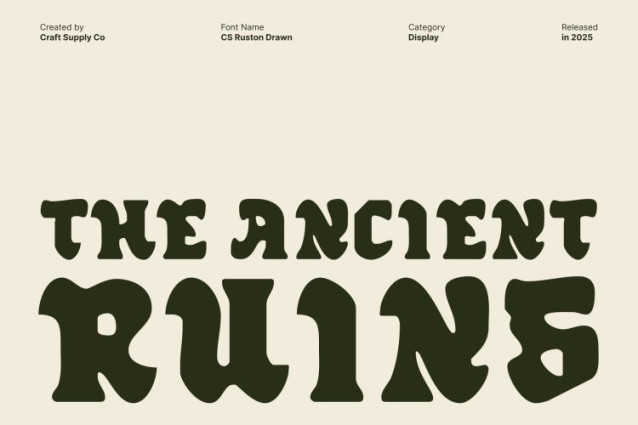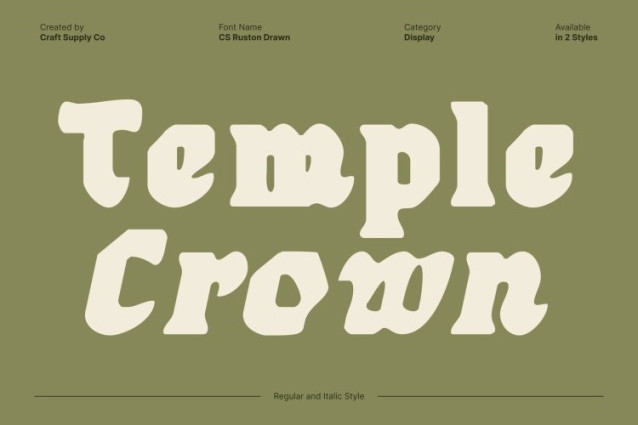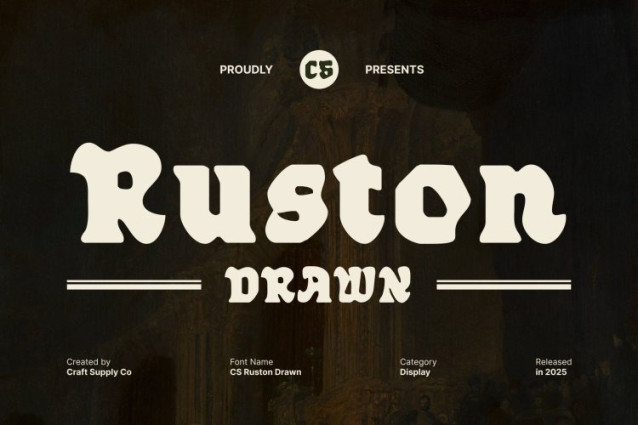
CS Ruston Drawn Font
CS Ruston Drawn Font This is a bold display font built to command attention. With its heavy weight and solid letterforms, this typeface delivers a strong, confident presence that instantly elevates visual impact. Inspired by gothic typography, it carries a sense of authority, drama, and bold character, making every word feel intentional and powerful.
Gothic Influence with Expressive Character
Rooted in gothic aesthetics, features assertive shapes, sharp structures, and striking proportions. These classic gothic influences give the font a timeless, commanding feel while maintaining a modern edge. The bold construction ensures excellent visibility, especially in large-scale display use where impact is essential.
Hand-Drawn Effect for Soft, Natural Shapes
What sets this font apart is its hand-drawn texture. The drawn effect softens the rigid gothic structure, introducing subtle irregularities that feel organic and natural. This handcrafted touch adds warmth and personality, preventing the font from feeling overly harsh while enhancing its artistic expression.
Versatile for Impactful Design Applications
Perfect for headlines, posters, logos, and impactful branding, balances strength with creativity. Its bold presence makes it ideal for projects that need to stand out, while the drawn texture adds uniqueness and approachability. From music visuals and editorial covers to branding and promotional designs, delivers a bold statement with artistic depth and expressive charm.